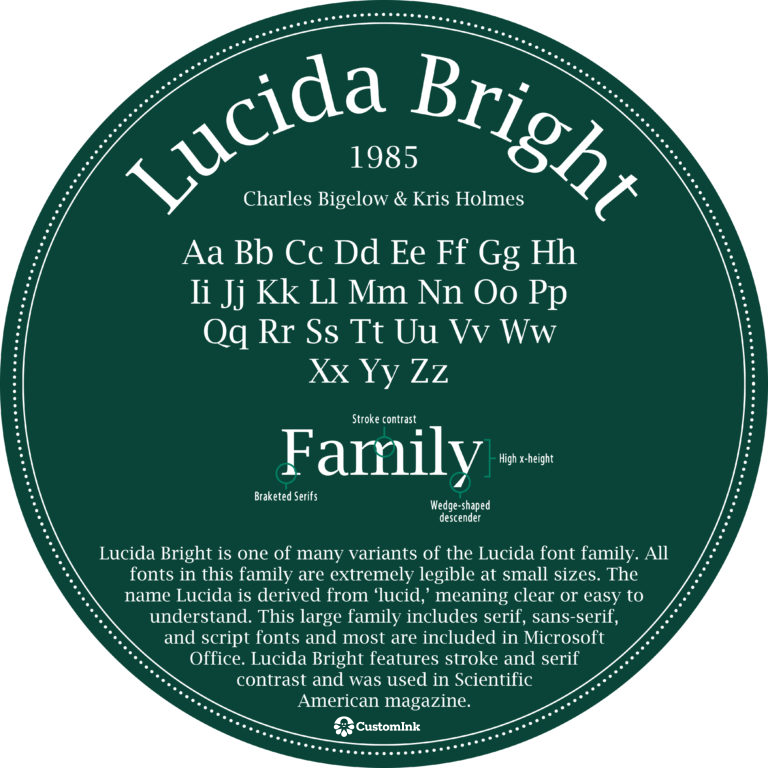
Font of the Week – Lucida Bright
Lucida Bright is one of many in the Lucida font family. Designers Charles Bigelow and Kris Holmes created the fun and easy to read family in 1993 for uses in a variety of print ranging from magazines to newsletters. The family was aptly named “Lucida” as a reference to the easily understood format and “lucid” nature. You may recognize Lucida Bright from it’s home in the Microsoft Office suite.